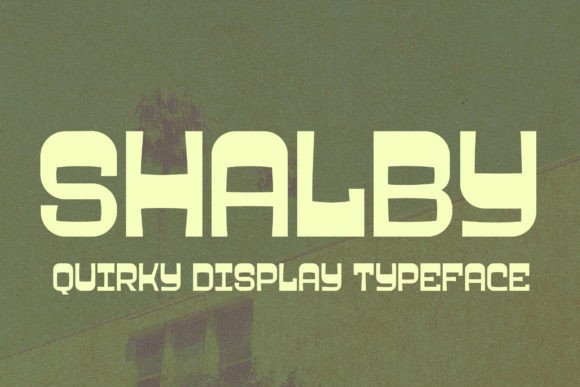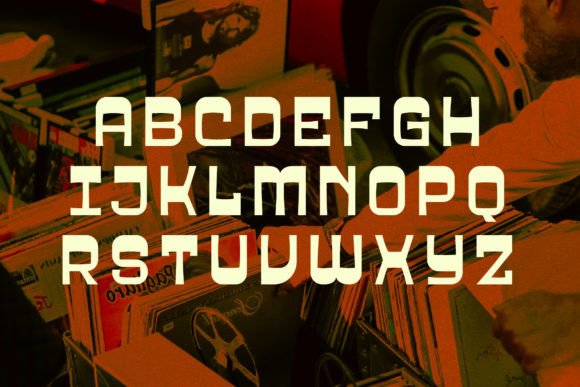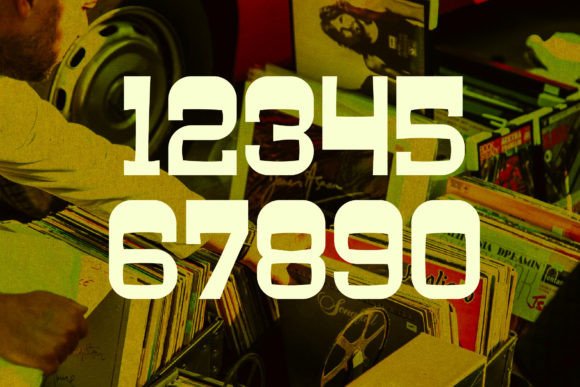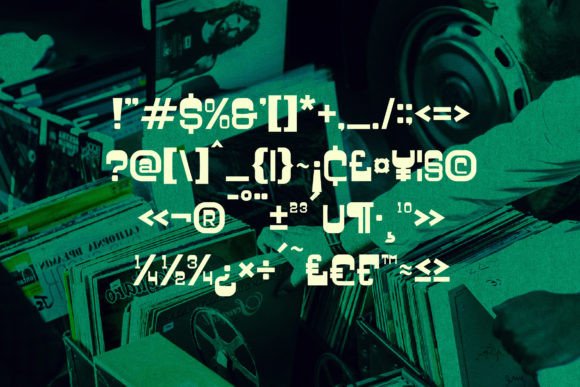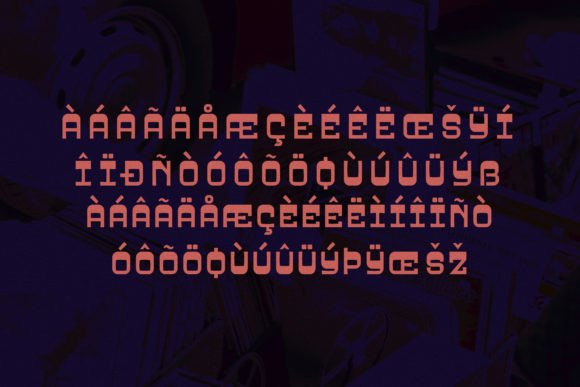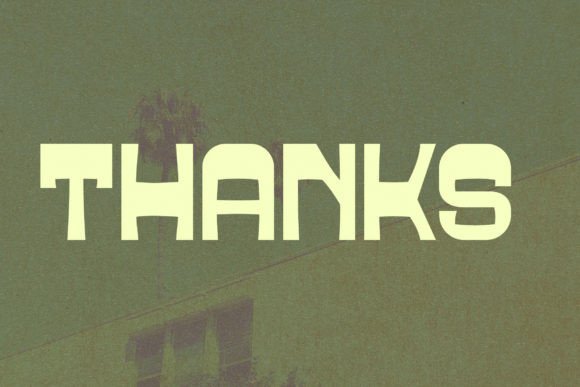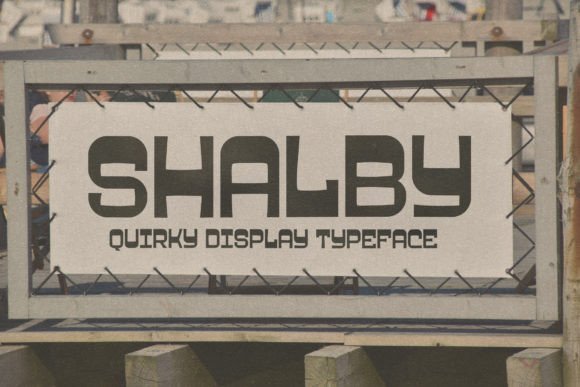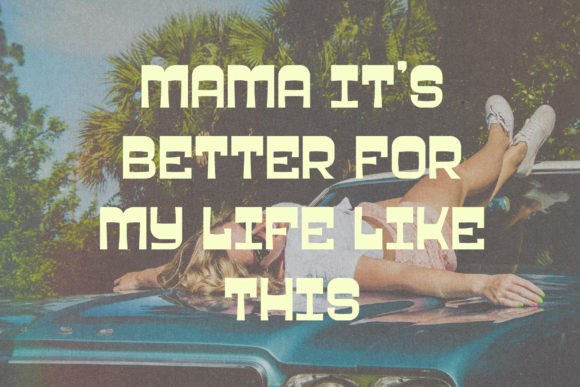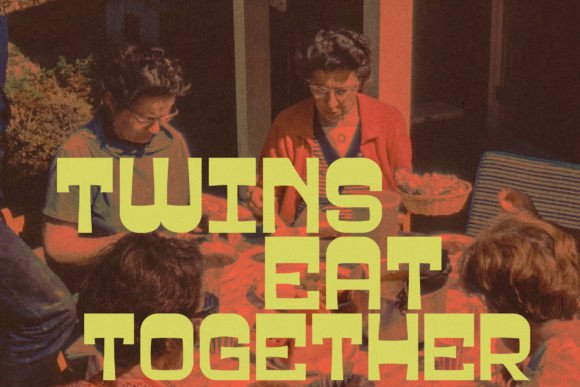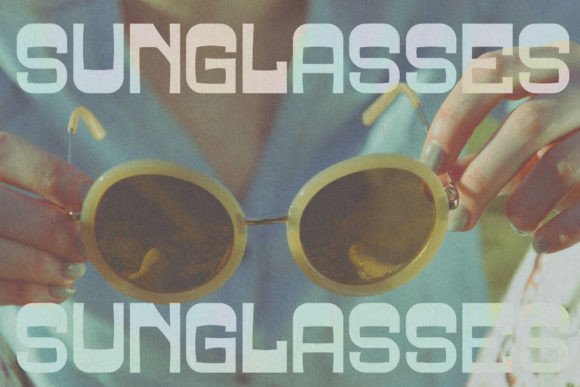
Shalby
Shalby: A Modern and Classic Slab Serif Font
Shalby is a modern and classic slab serif font that combines unique style with a contemporary look. This versatile typeface perfectly suits elegant and luxury projects, from fashion brands to movie titles. Moreover, its distinctive character makes it ideal for logos, book titles, magazines, clothing brands, lettering, and quotes.
Key Features of Shalby
• Modern Design: Offers a fresh take on classic slab serif style.
• Classic Elements: Maintains timeless appeal while staying current.
• Unique Style: Features distinctive letterforms that stand out.
• Versatile Application: Works well across luxury and elegant projects.
Best Uses for Shalby
Thanks to its unique characteristics, Shalby works especially well for:
When using Shalby in your designs, keep these tips in mind:
• Try it for luxury branding to showcase its elegant style.
• Use different sizes to highlight its modern yet classic features.
• Pair with simpler fonts for body text to create contrast.
• Let its unique character shine in titles and headlines.
To sum up, Shalby is an excellent choice for designers seeking a modern and classic slab serif font. Its unique style makes it perfect for elegant and luxury projects. Whether you’re creating fashion brands, designing book titles, or developing movie graphics, Shalby offers the perfect blend of contemporary appeal and timeless sophistication.
Furthermore, Shalby’s distinctive design allows it to shine in various contexts where elegance meets modernity. For instance, from magazine layouts to clothing brands, this font can elevate your projects with its unique style. Also, its modern yet classic appearance works particularly well in designs that aim to make a sophisticated impact.
In conclusion, Shalby truly captures the essence of modern elegance in slab serif typography. Its versatility across different applications shows how well it can serve various creative needs. Therefore, for those wanting to add a touch of contemporary sophistication to their work, Shalby can enhance any design with its distinctive style. Ultimately, it’s perfect for designers aiming to make an elegant, modern impact across luxury creative projects.